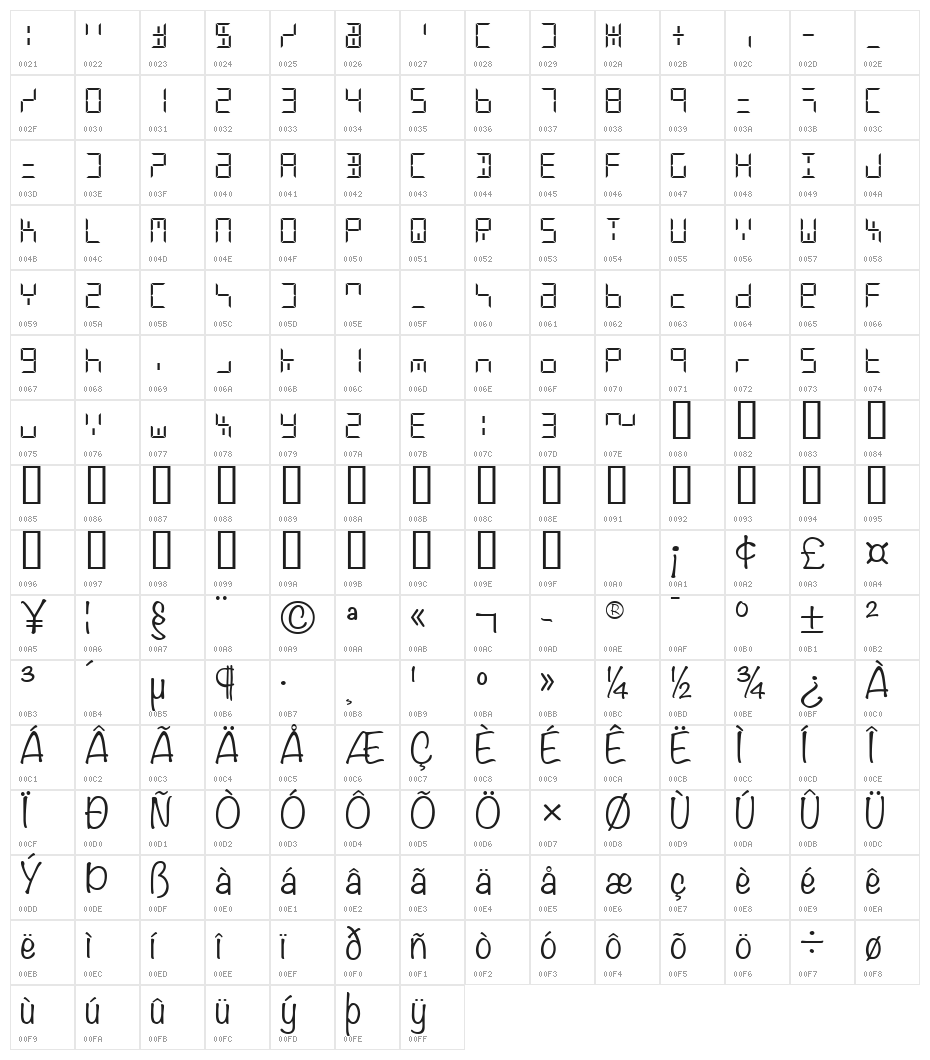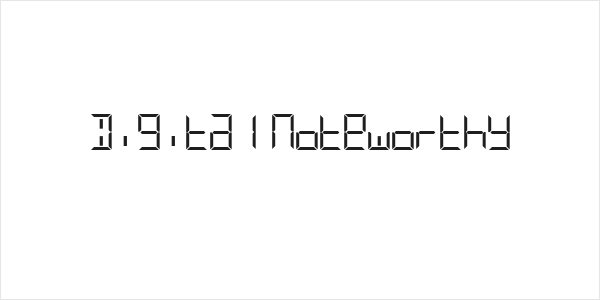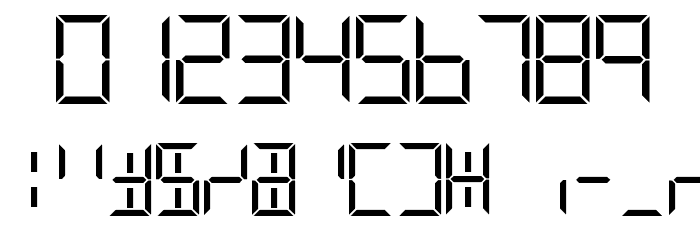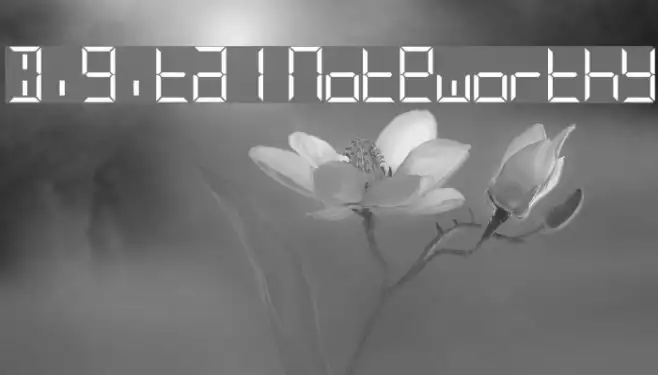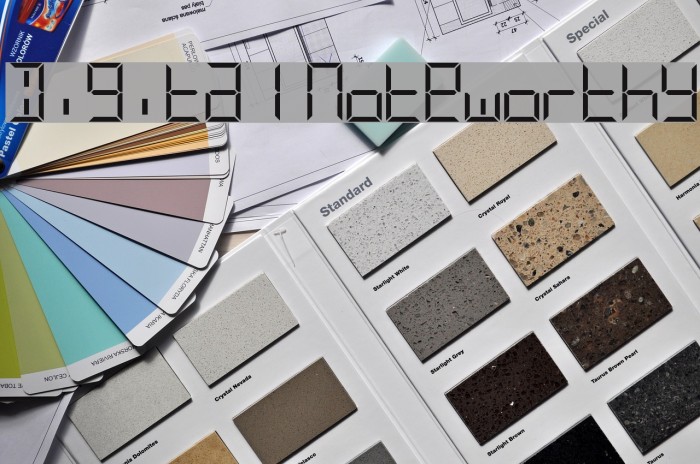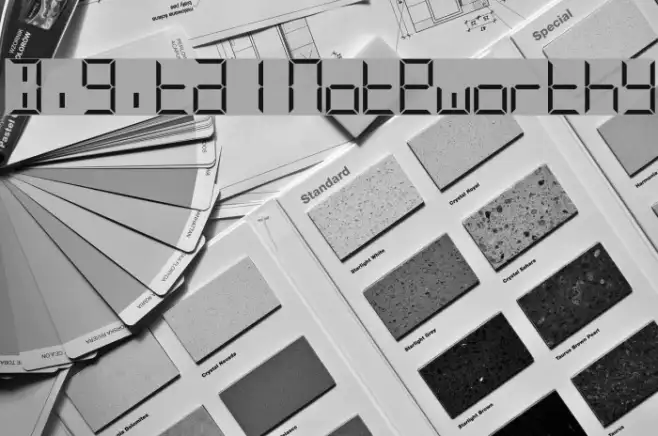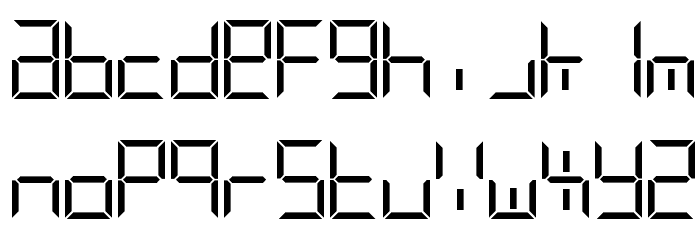
Digital Noteworthy Font
Digital Noteworthy Description
This font mimics the appearance of digital displays, reminiscent of classic LED or LCD screens. Each character is composed of segmented lines, creating a geometric and angular look. The uppercase and lowercase letters, as well as numbers, maintain a consistent style that emphasizes clarity and readability, typical of digital readouts. The design is minimalistic, focusing on straight lines and sharp angles, which gives it a futuristic and technical feel. The special characters are also crafted to match the digital theme, ensuring uniformity across all glyphs.
| Use Case | Headlines, Logos, Digital displays |
| Proposed Projects | Ideal for digital-themed projects, tech-related branding, retro-futuristic designs, or any application requiring a digital or technical aesthetic. |